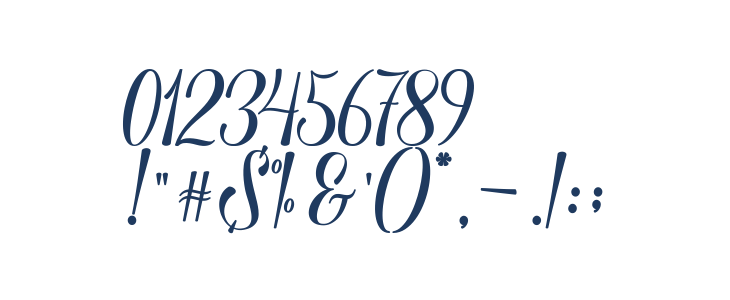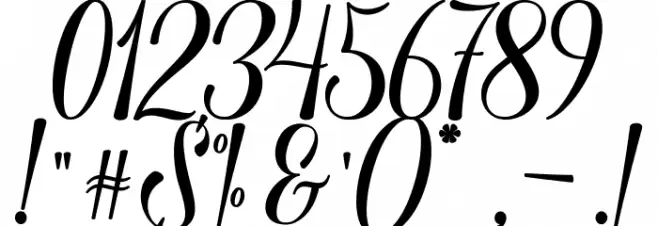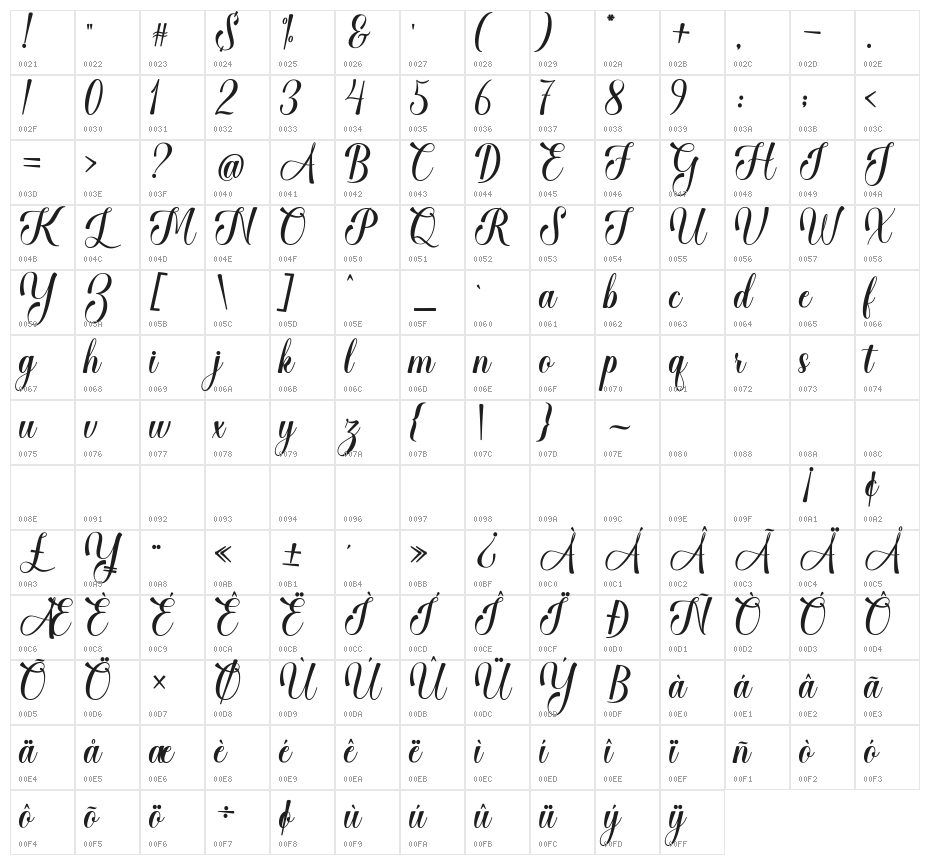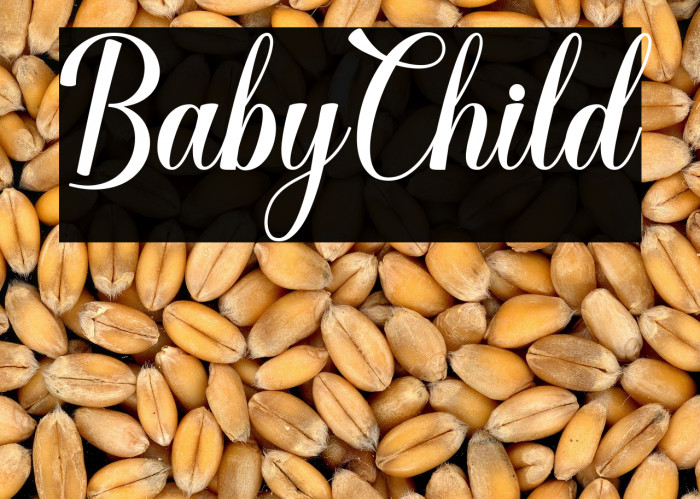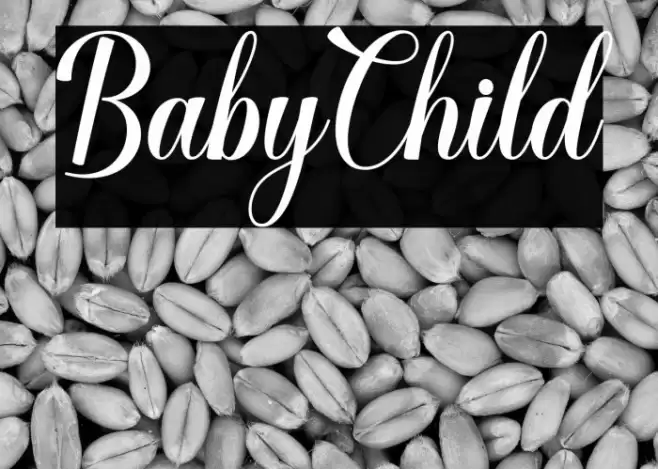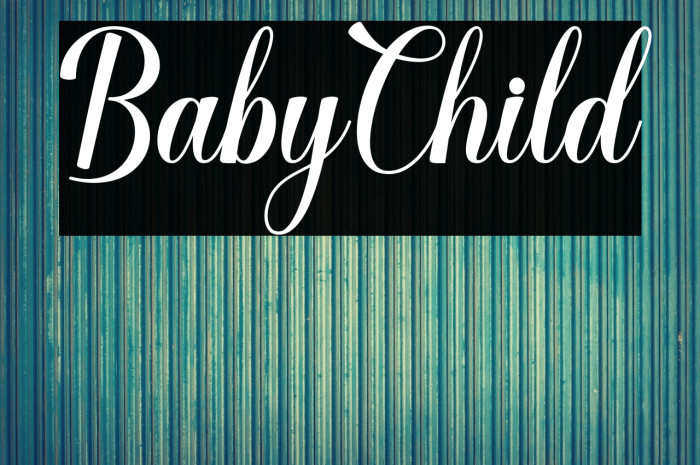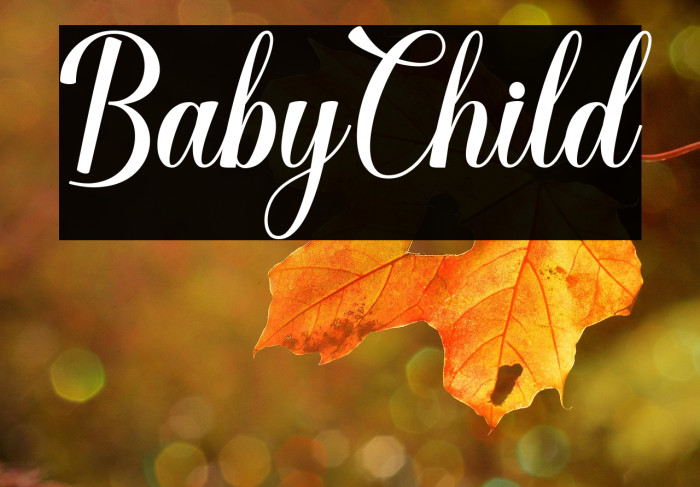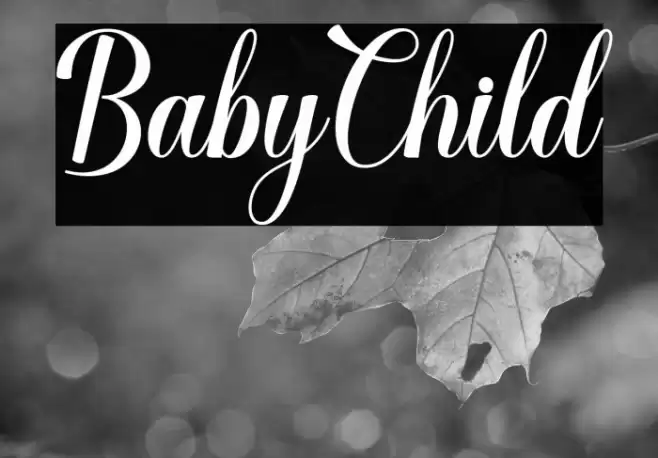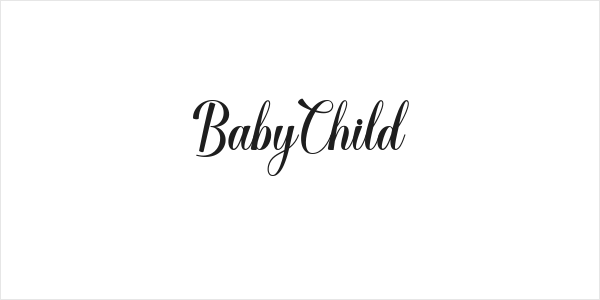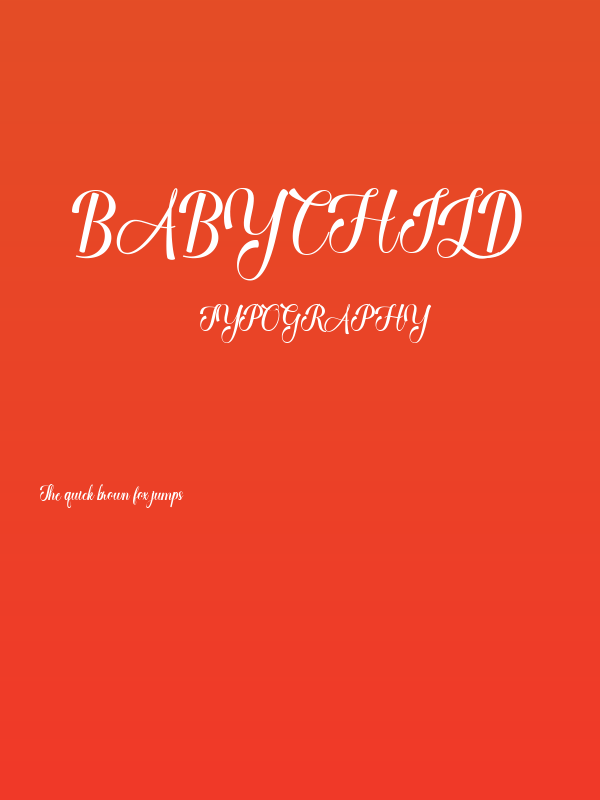
BabyChild Font
BabyChild Description
This elegant script font features flowing, interconnected letters that exude a sense of sophistication and grace. The uppercase letters are characterized by their sweeping curves and intricate loops, while the lowercase letters maintain a smooth, fluid motion. The numerals are stylishly designed, complementing the overall aesthetic of the font. Special characters are crafted with the same attention to detail, ensuring a cohesive look across all glyphs. This font is perfect for projects that require a touch of elegance and refinement.
| Proposed Projects | Ideal for wedding invitations, elegant branding, greeting cards, and luxury packaging. |